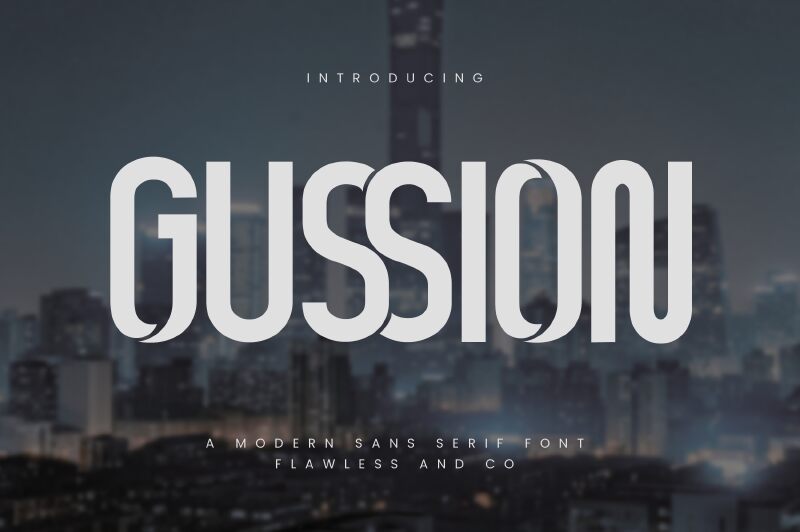
GUSSION Regular
Gussion font by Achmad Yani of Flawless and Co. is a free groovy display font that locks in attention with its chunky, upright letterforms and rounded inner curves. The tall, narrow rhythm feels like bold lettering on a vintage gig poster, while the heavy strokes give it a dense, inky presence that fills space with confidence. Its mix of squared edges and smooth curves creates a modern take on retro, giving headlines a punchy, streetwise attitude without feeling cartoonish.
Using Gussion, this free font shines on bold logos, posters, album covers, apparel graphics, packaging, and social media titles where you want a solid, rhythmic wordmark. The tight structure means it holds up especially well in all caps, and you can pair it with a clean sans serif in smaller sizes to handle body copy. Keep Gussion large, generous, and uncluttered, and it’ll deliver that thick, groovy hit of personality your layouts are missing.